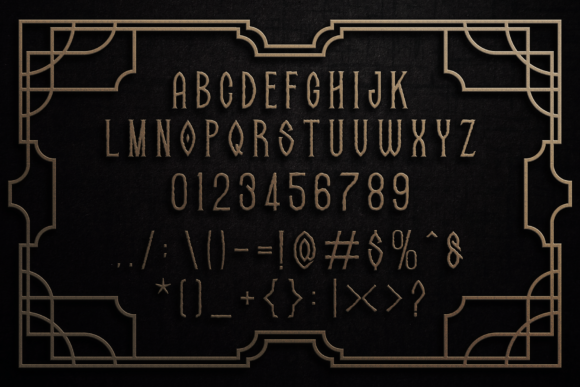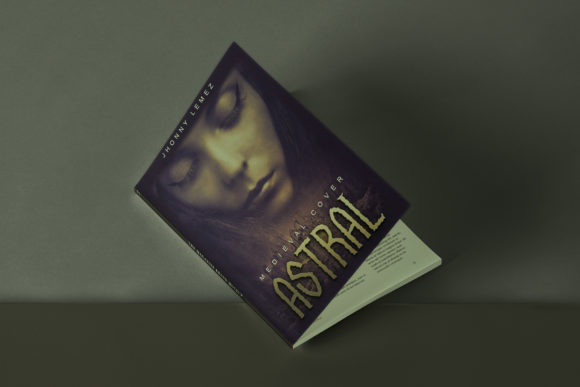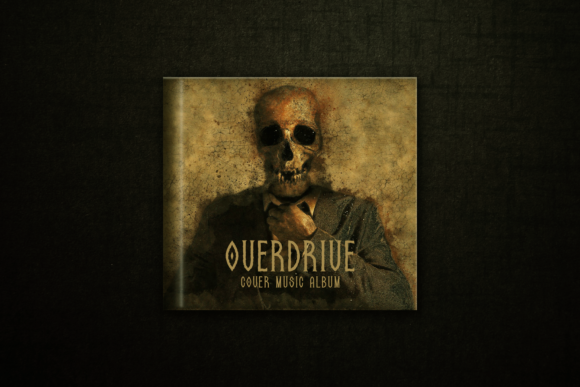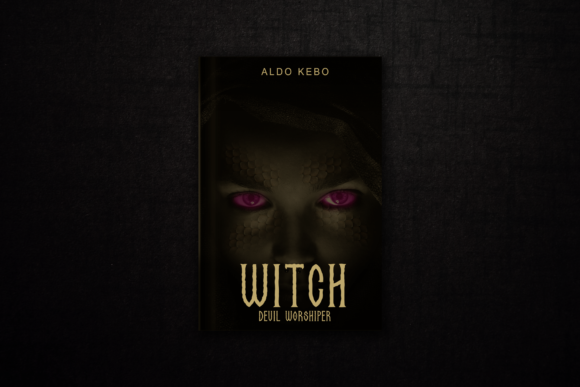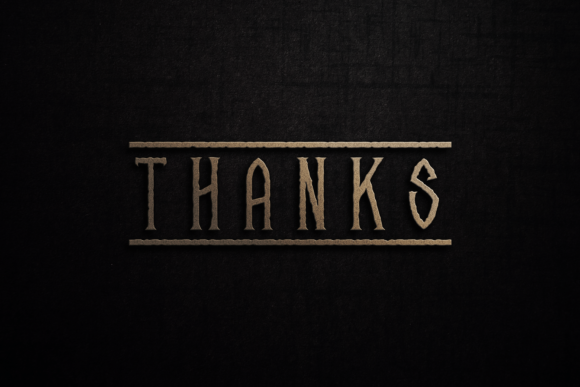
The Perfect Addition to Your Design Arsenal: Astral Font
Have you ever been in the middle of a creative project, staring at a blank canvas, and suddenly, the perfect font pops into your head? It’s as if the universe has aligned the stars just right to give your design the boost it needs. This is exactly what happens when you discover the Astral Font – a cool and neat display font that can elevate any creation.
Astral Font is more than just a pretty face; it’s a versatile tool designed to take your designs to new heights. Whether you’re a seasoned designer or just starting out, this font has the potential to become your go-to companion for any project. Its unique style and aesthetic make it an incredibly valuable asset to any font library.
With Astral Font, the possibilities are endless. From posters and flyers to websites and social media graphics, this font is sure to make your designs stand out from the crowd.
Astral Font Key Features
- Unique Characteristics: Astral Font features a unique blend of futuristic and cosmic elements, making it perfect for sci-fi, technology, and space-themed designs.
- Font Styles: Astral Font includes a range of styles, from bold and condensed to regular and extended, providing designers with a wide range of options to suit their needs.
Astral Font Review
I recently had the chance to work with the Astral font, and I’m excited to share my thoughts on it. Here’s what I found:
- Astral has a very unique and futuristic feel to it, which I think makes it perfect for science fiction or tech-related projects.
- The font is highly legible, even at smaller sizes, which is a big plus for me.
- The font family includes a wide range of weights and styles, giving designers plenty of flexibility.
- The font can feel a bit over-the-top or gimmicky if used in more straightforward applications.
- The bold weights can be a bit difficult to read in certain contexts, such as body text.
- The font doesn’t include many language support options, which may be a limitation for designers working on multilingual projects.
Overall, I think Astral is a great addition to any designer’s toolkit. While it may not be the best fit for every project, it’s definitely a unique and eye-catching option that can add some real visual interest to a design.
Astral Font is ideal for:
- Creating futuristic or sci-fi themed designs.
- Adding a touch of elegance to corporate branding.
- Designing digital products, such as mobile apps or video games.
Tips for Getting the Most Out of Astral Font
To get the most out of Astral Font, consider the following tips:
- Pair Astral Font with other futuristic or sci-fi themed elements.
- Experiment with different font sizes and